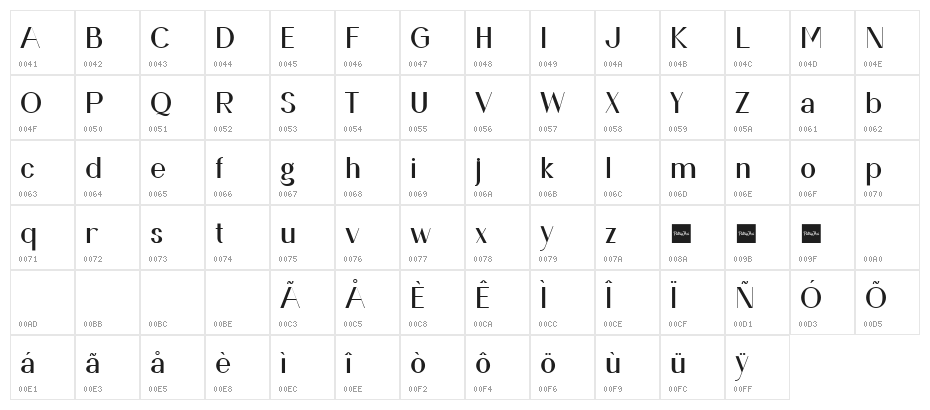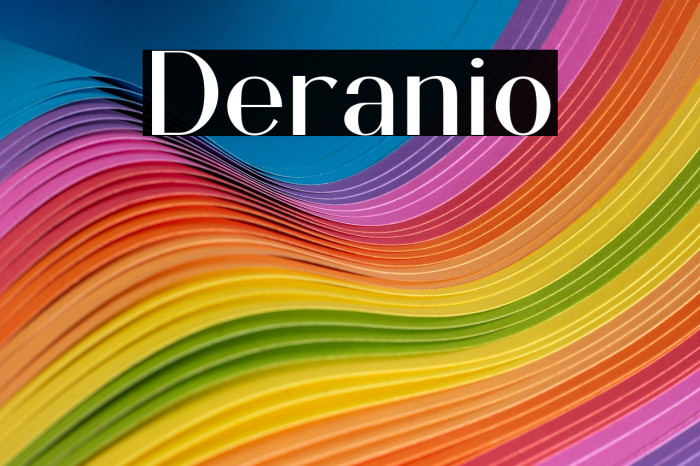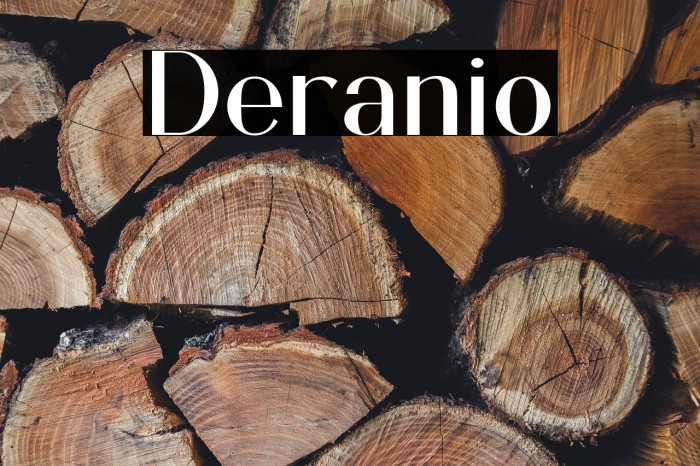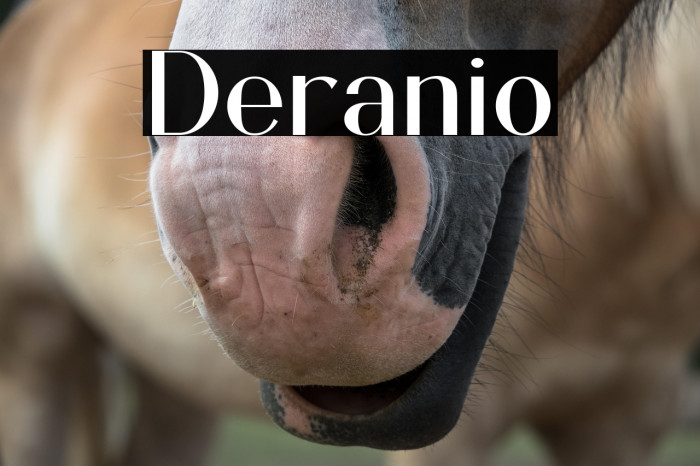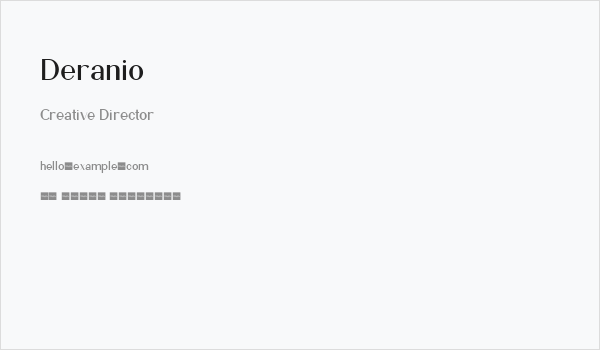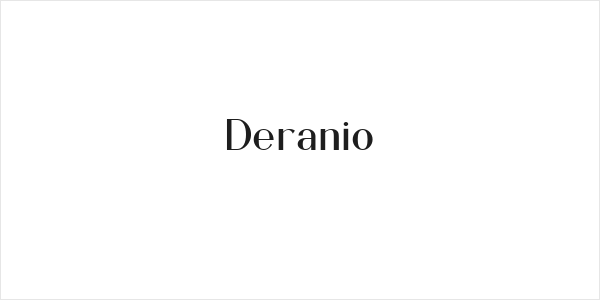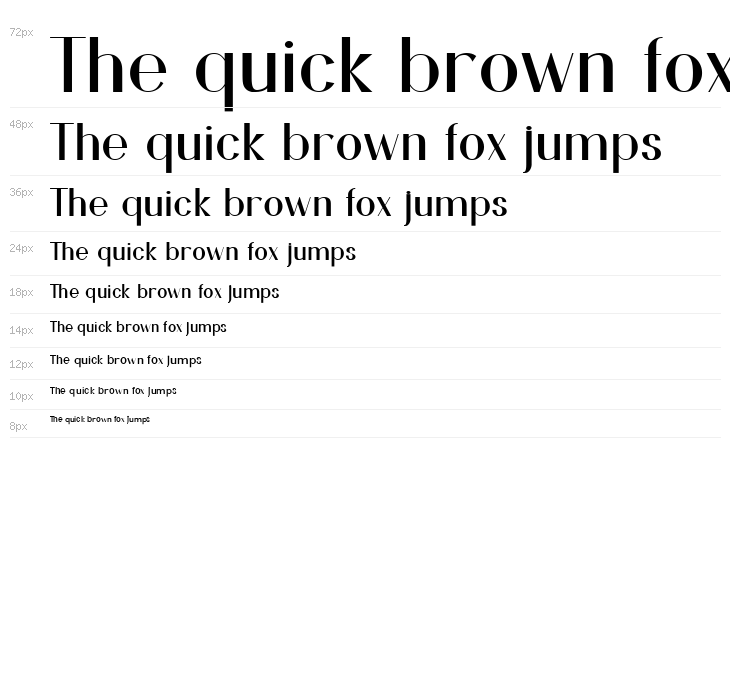
Deranio Font
Deranio Description
This font exhibits a modern and sophisticated style, characterized by its high contrast between thick and thin strokes. The uppercase letters are elegant and elongated, with a slight flair that adds a touch of drama. The lowercase letters maintain a consistent flow, with rounded edges that soften the overall appearance. The font's design is both sleek and stylish, making it suitable for a variety of applications. Its unique blend of bold and delicate elements creates a striking visual impact, perfect for making a statement.
| Proposed Projects | Ideal for fashion magazines, luxury branding, and high-end product packaging. |